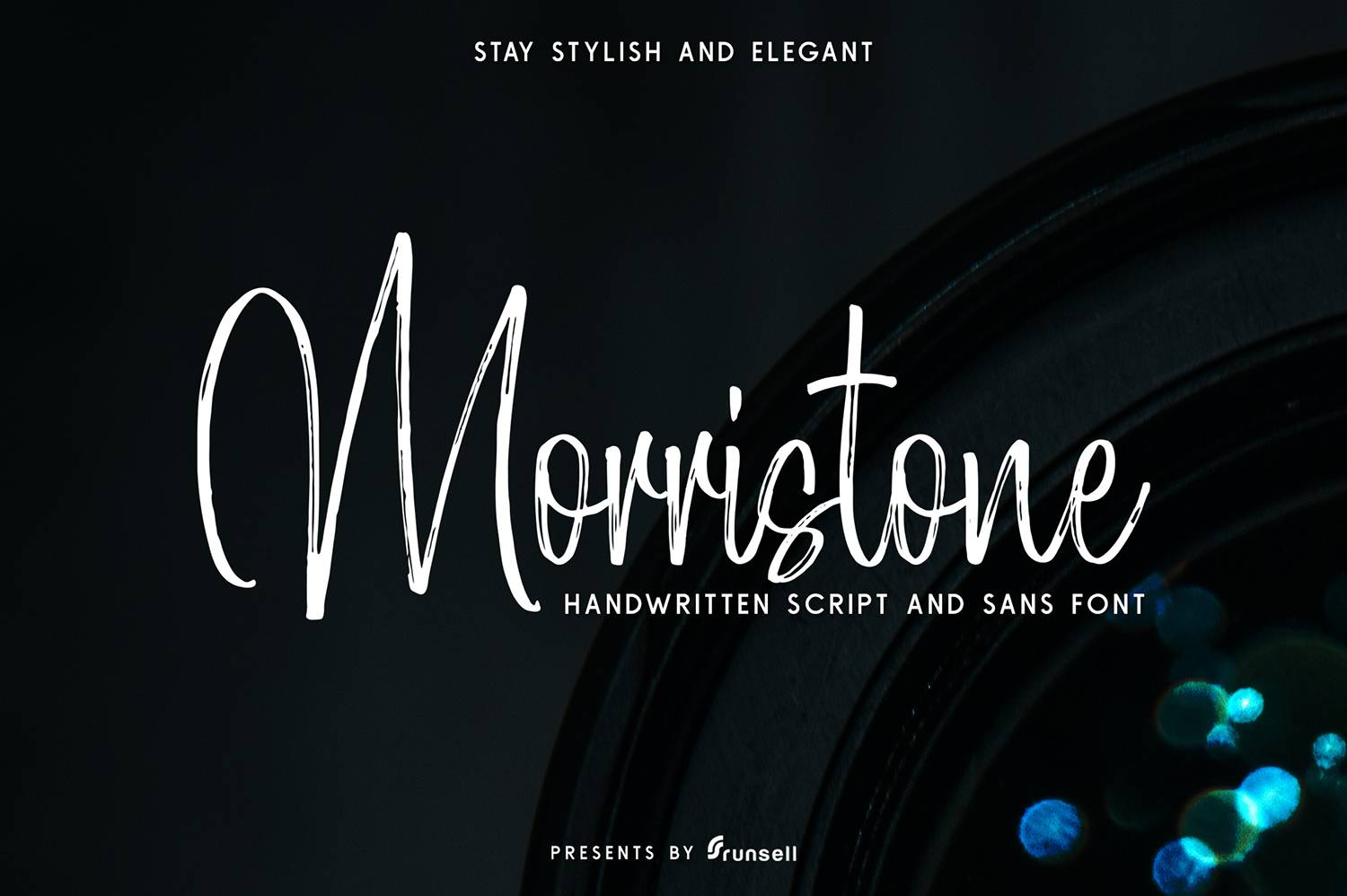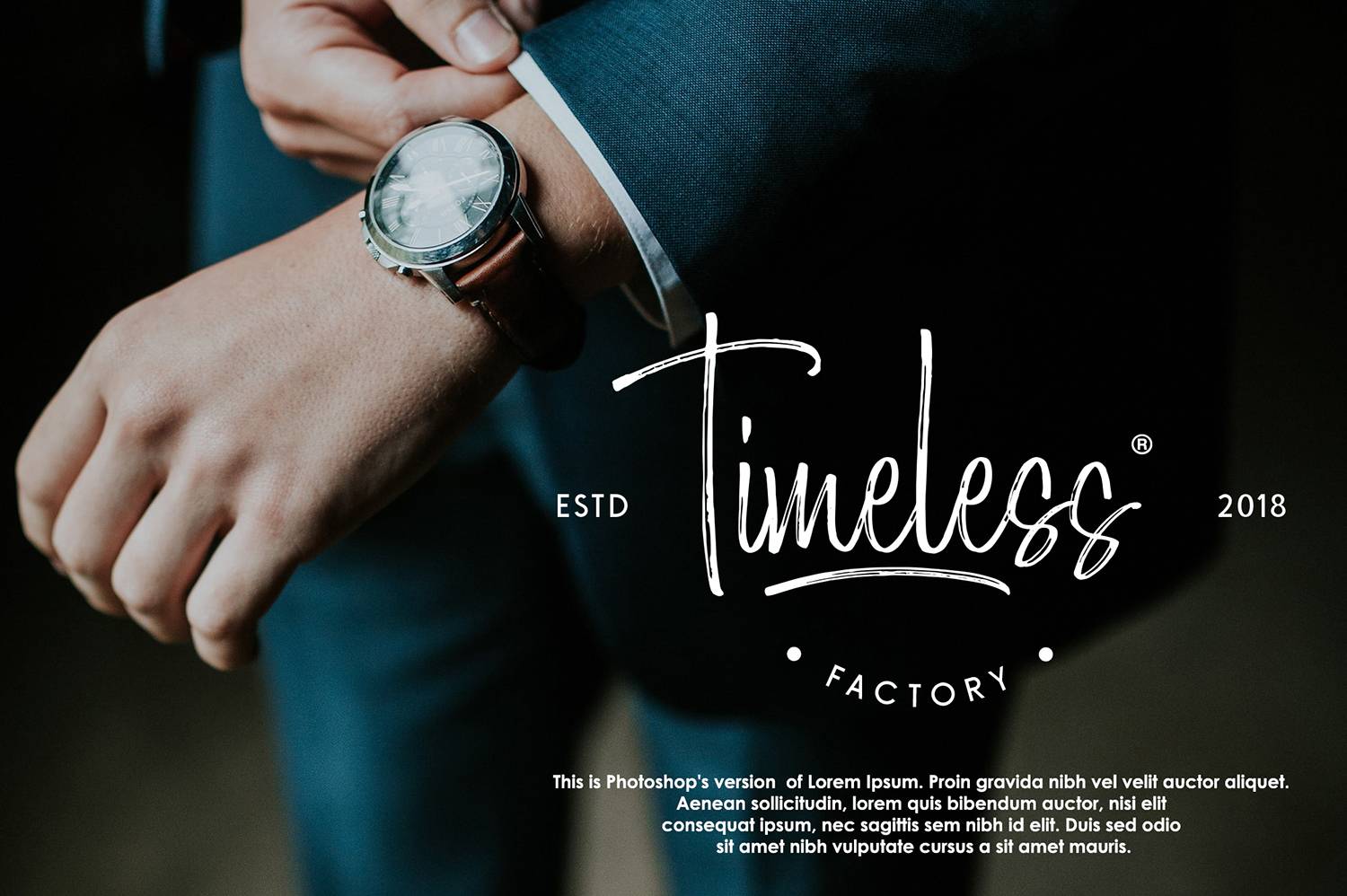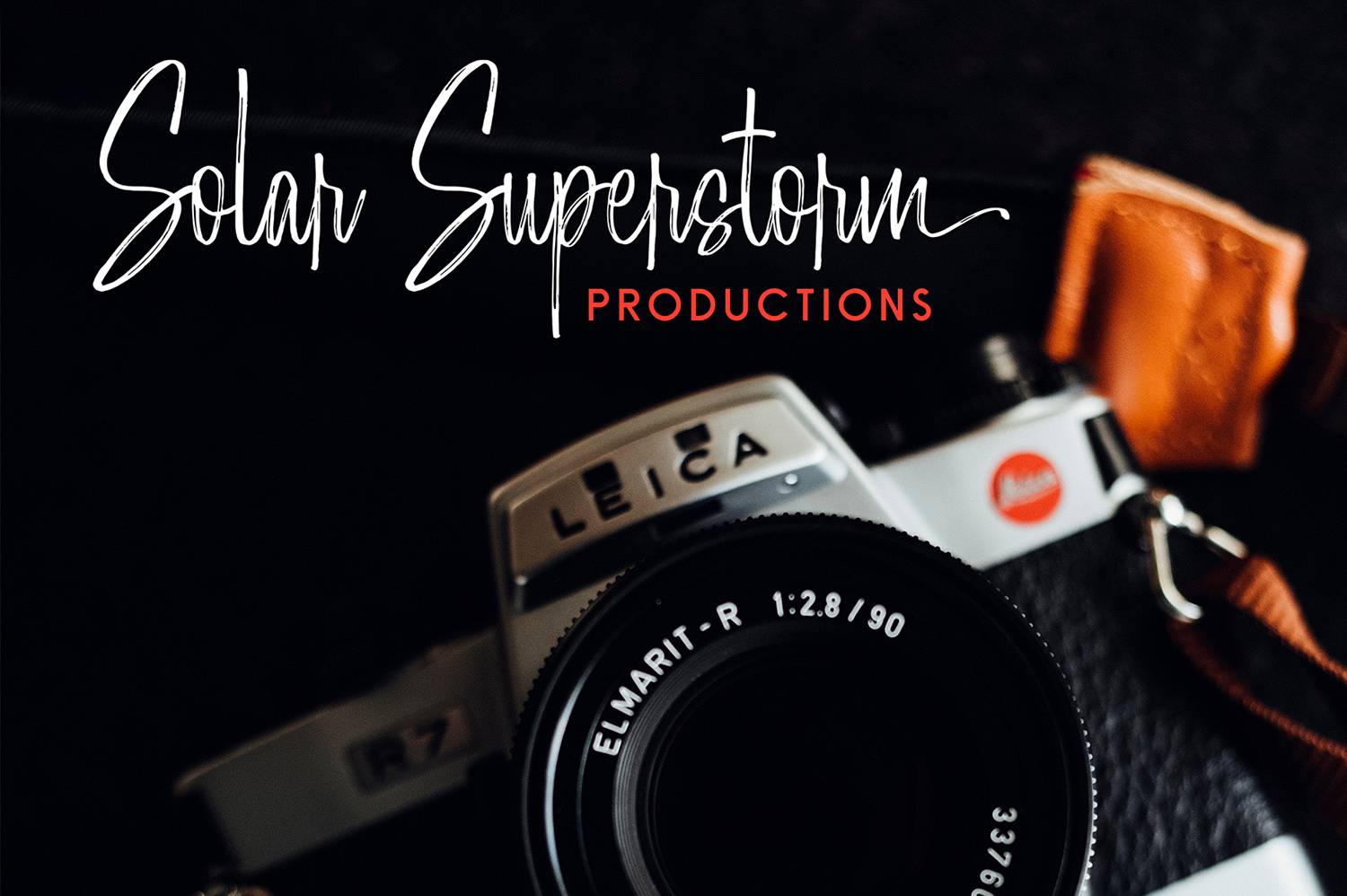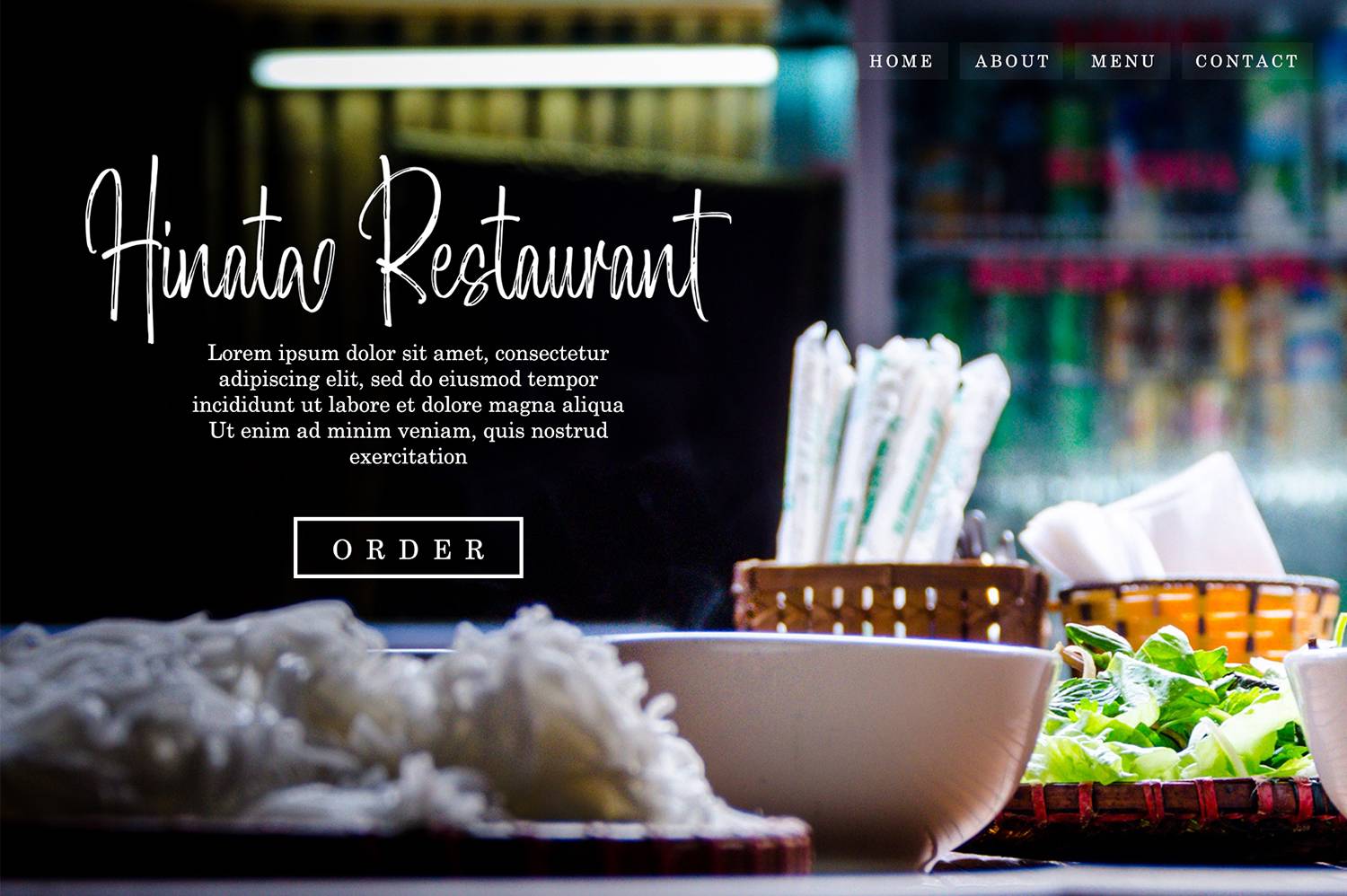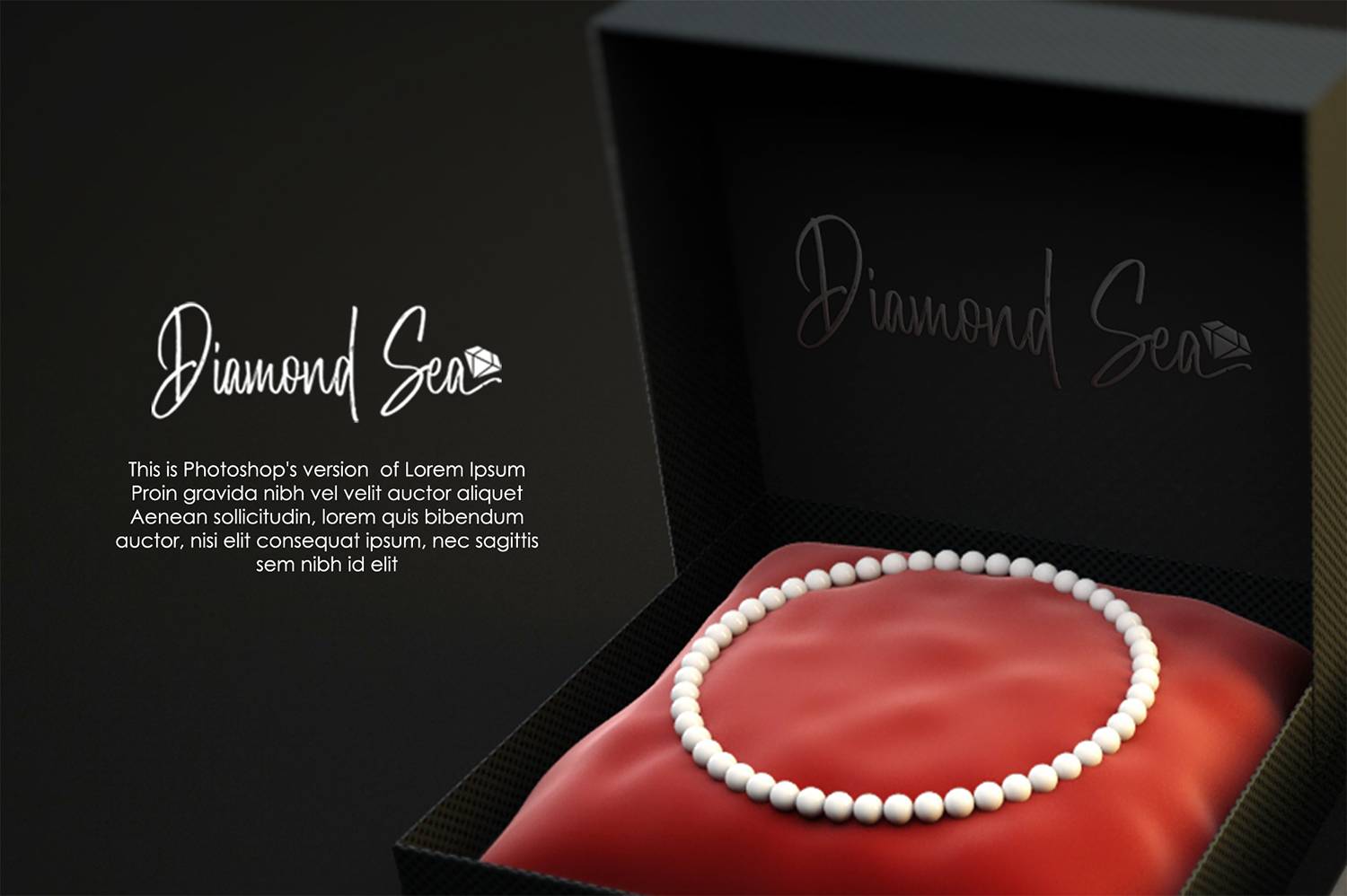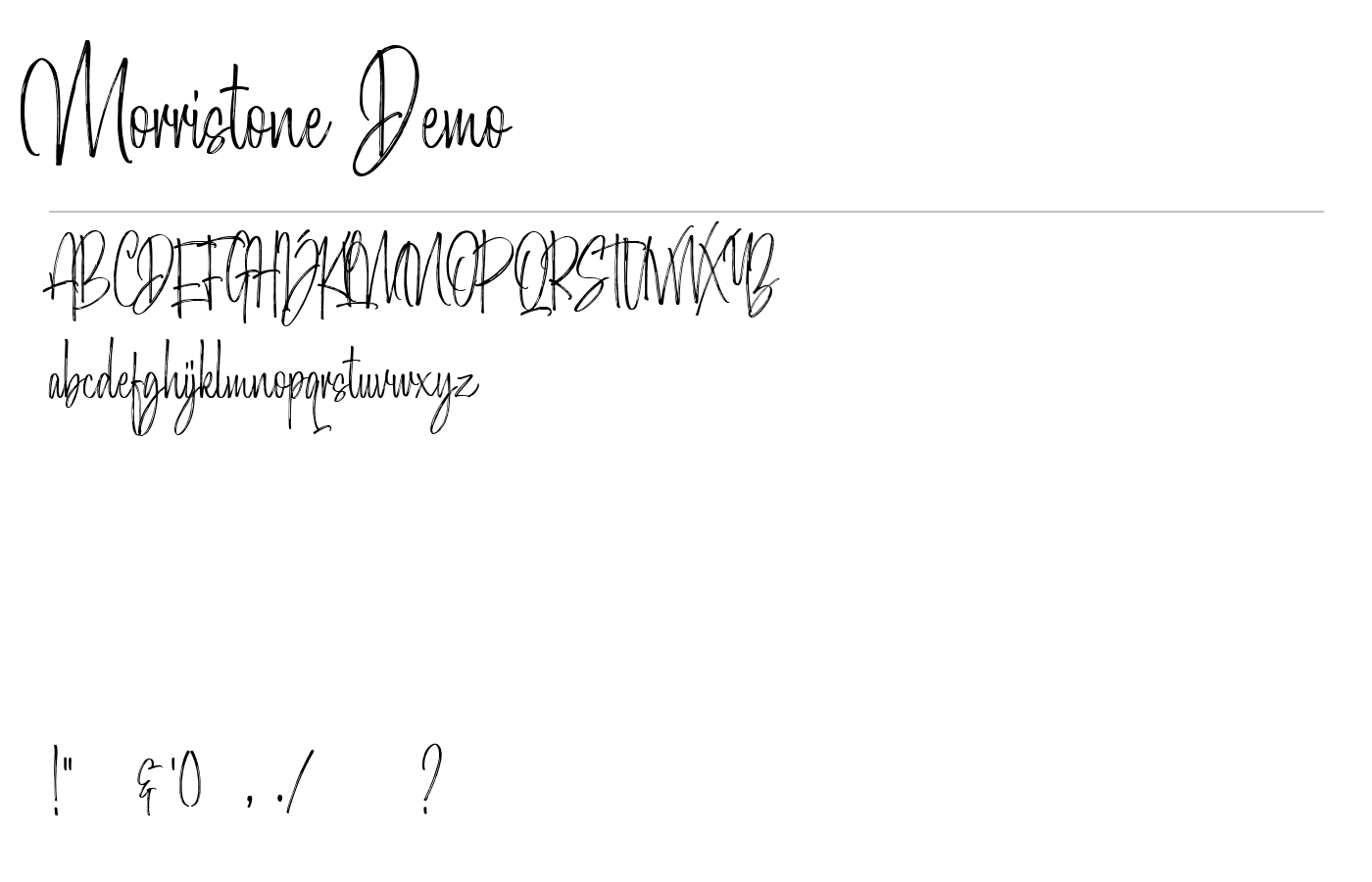
Morristone is a delicate, handwritten script font with tall, narrow letterforms and a lively, textured stroke that feels personal and artistic. Its fine lines and casual, flowing style make it ideal for creative and feminine branding, invitations, or editorial projects seeking a handwritten charm with a modern yet whimsical touch. This font works best in headlines or short text where its expressive character can shine without sacrificing readability.
Morristone Font
About Morristone Font
| Font family | Morristone Font |
| Designer | Edi Gunawan |